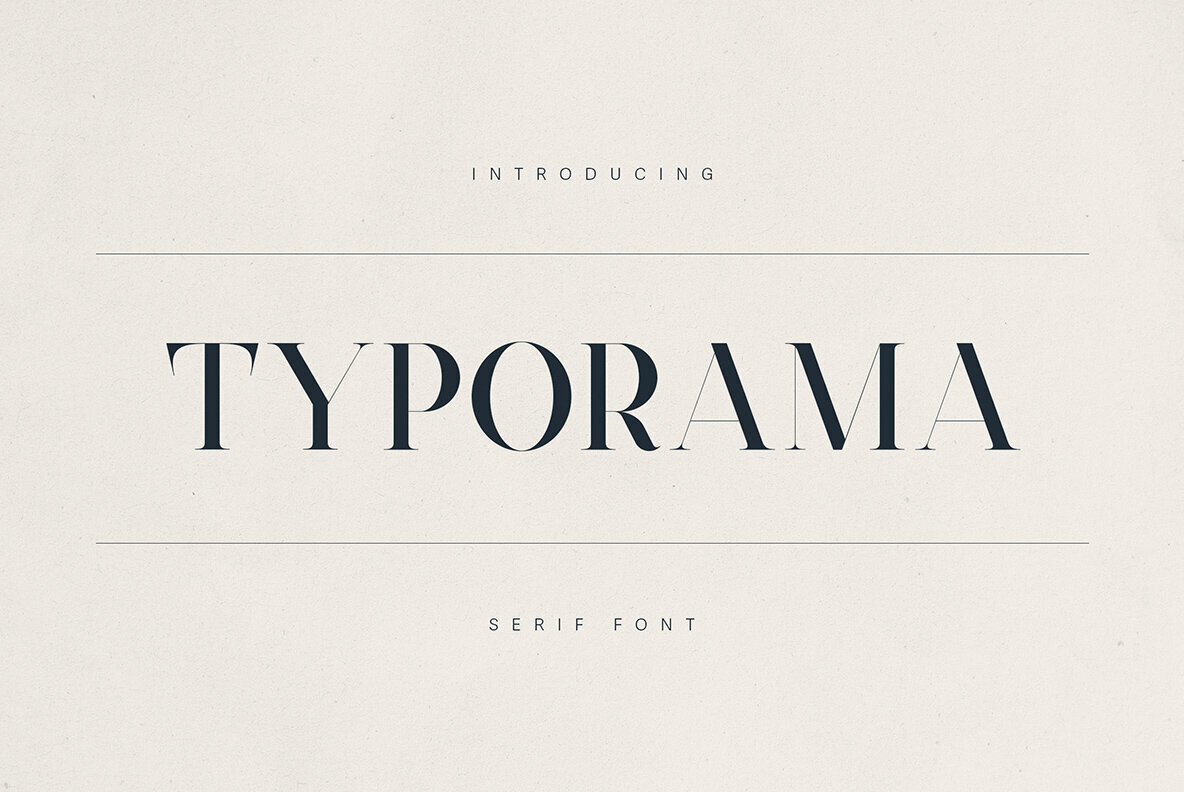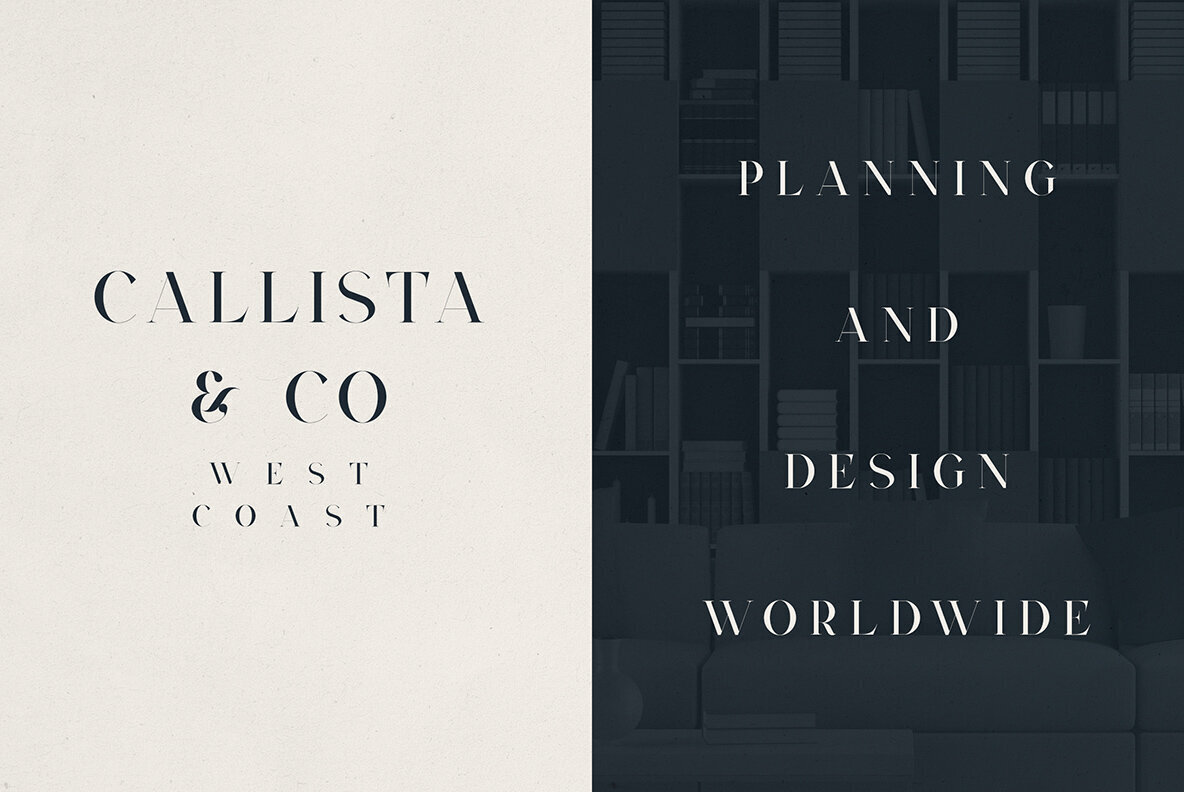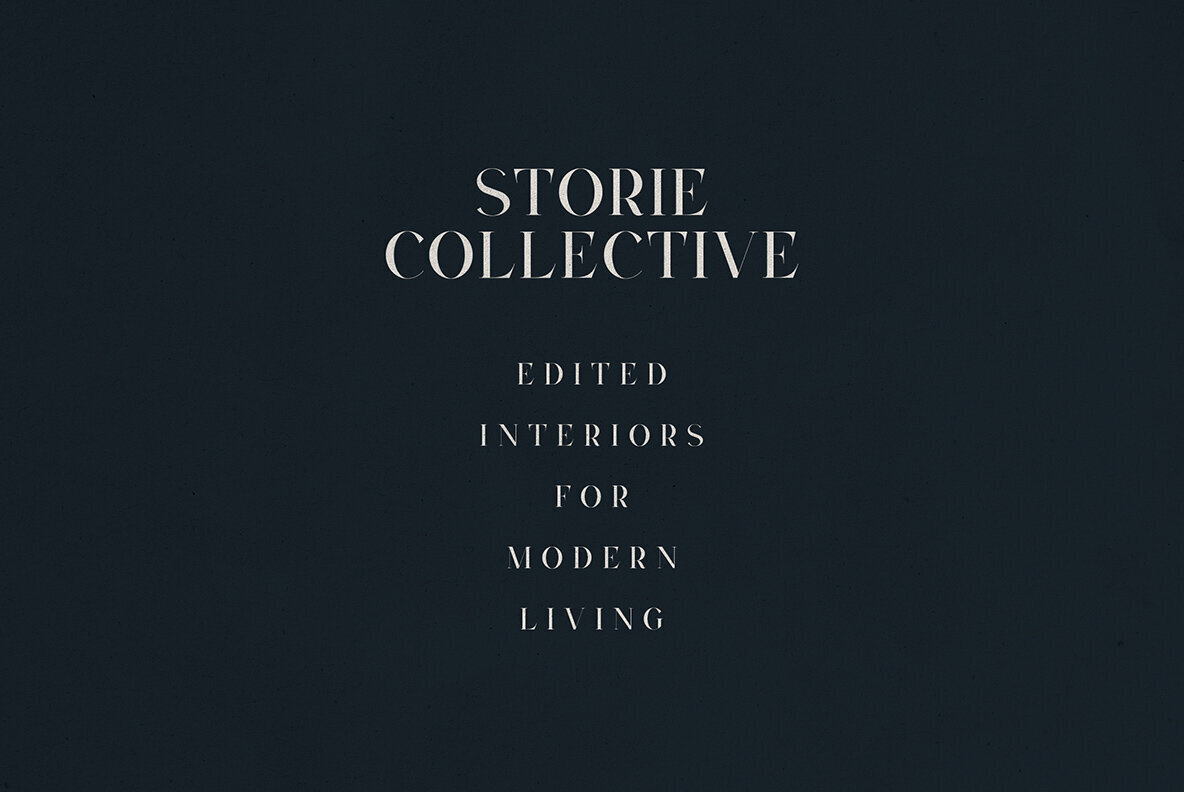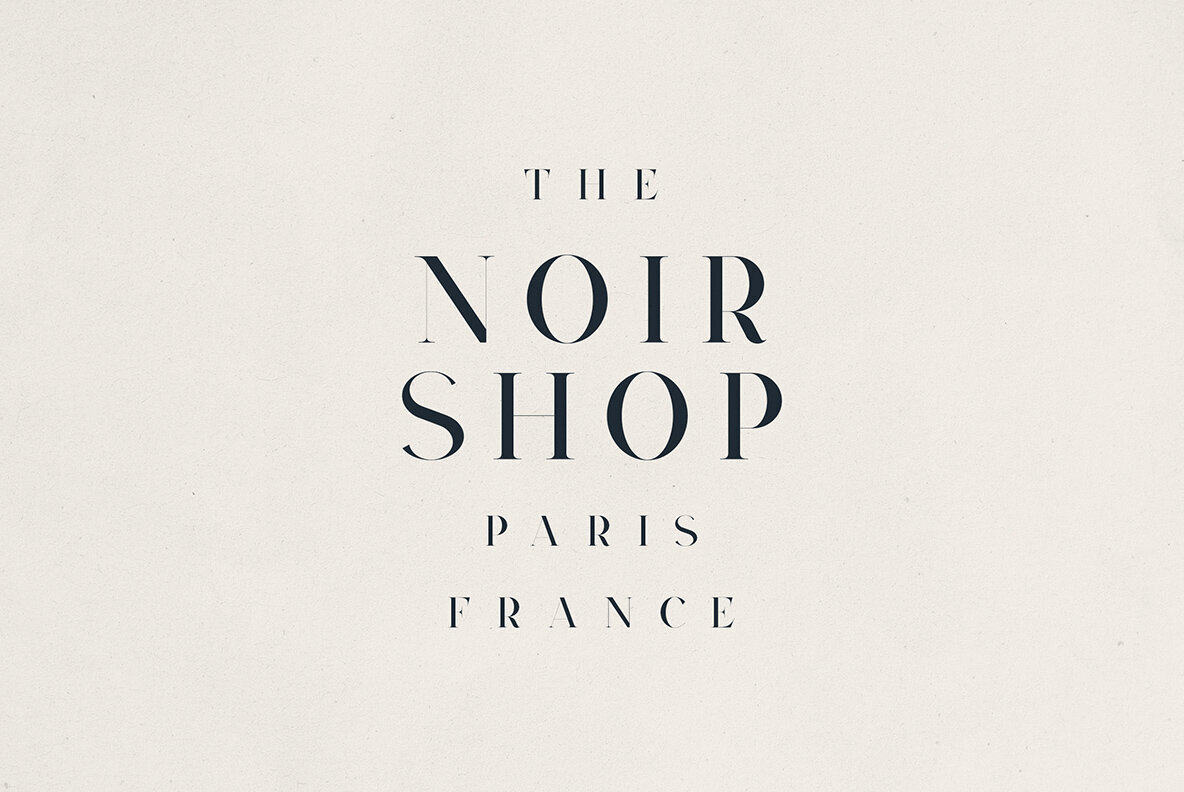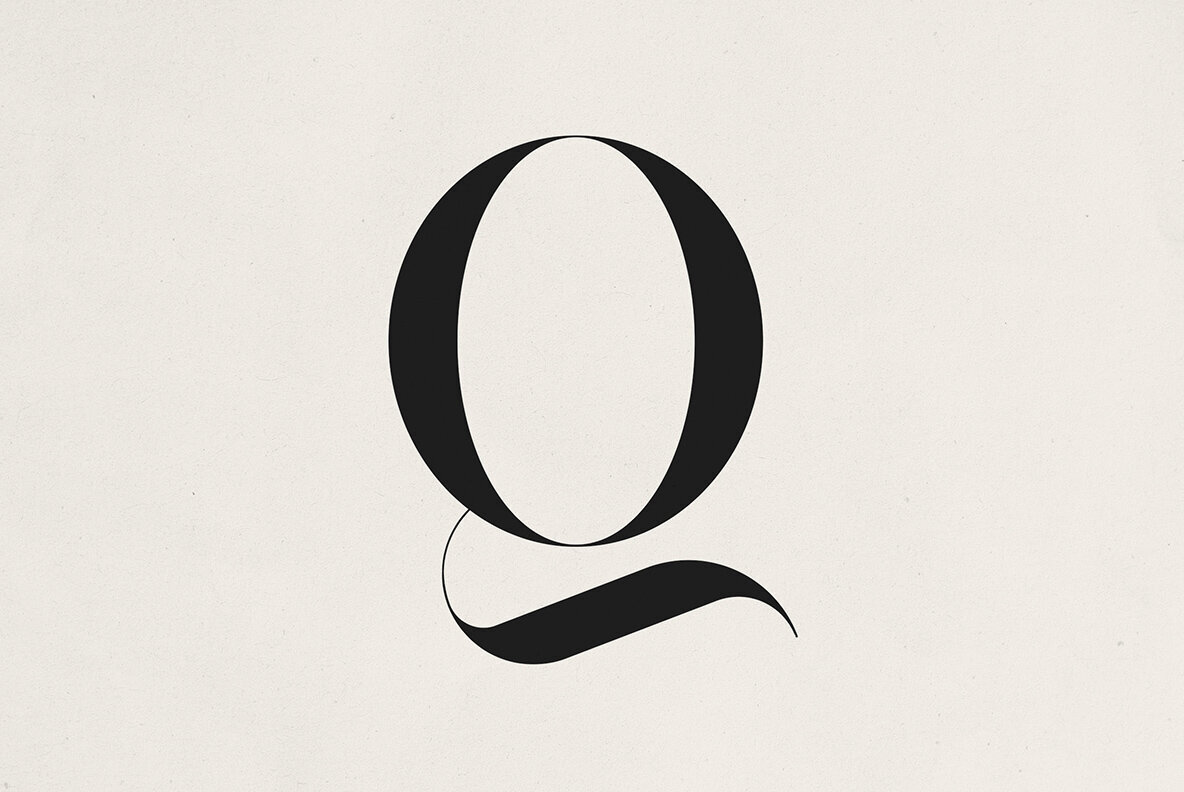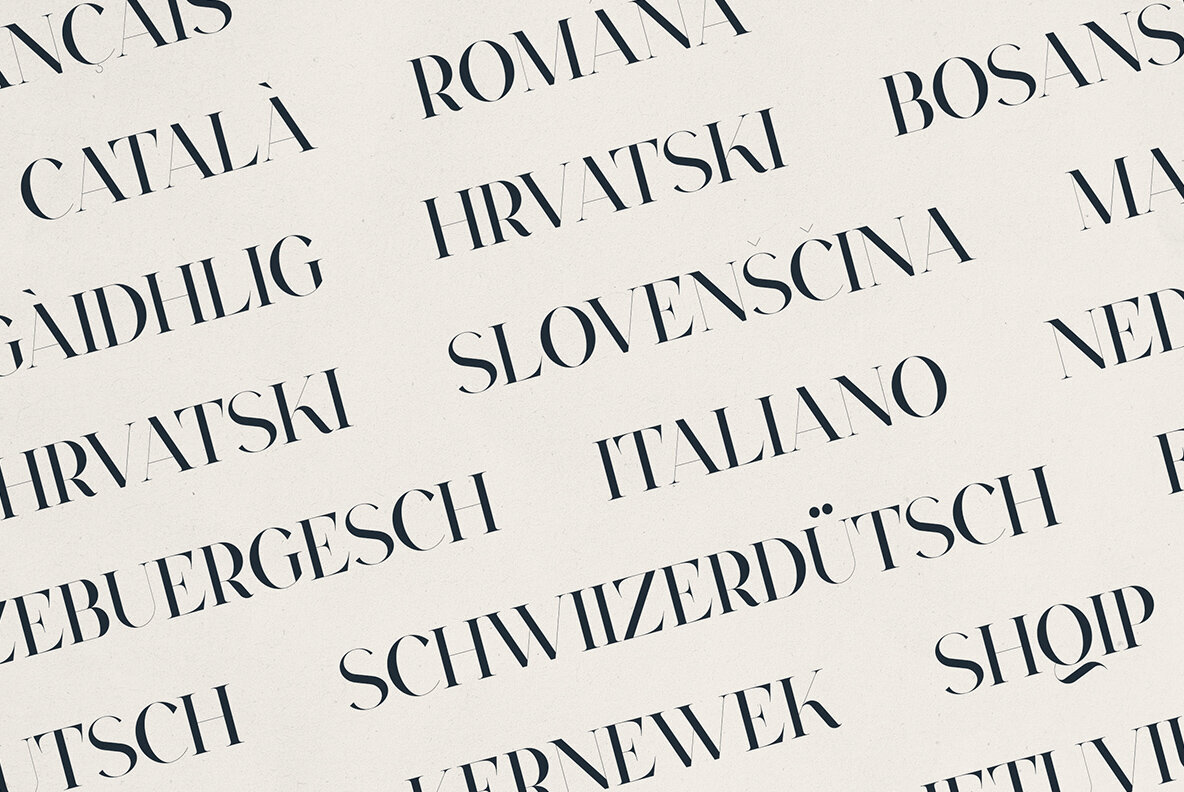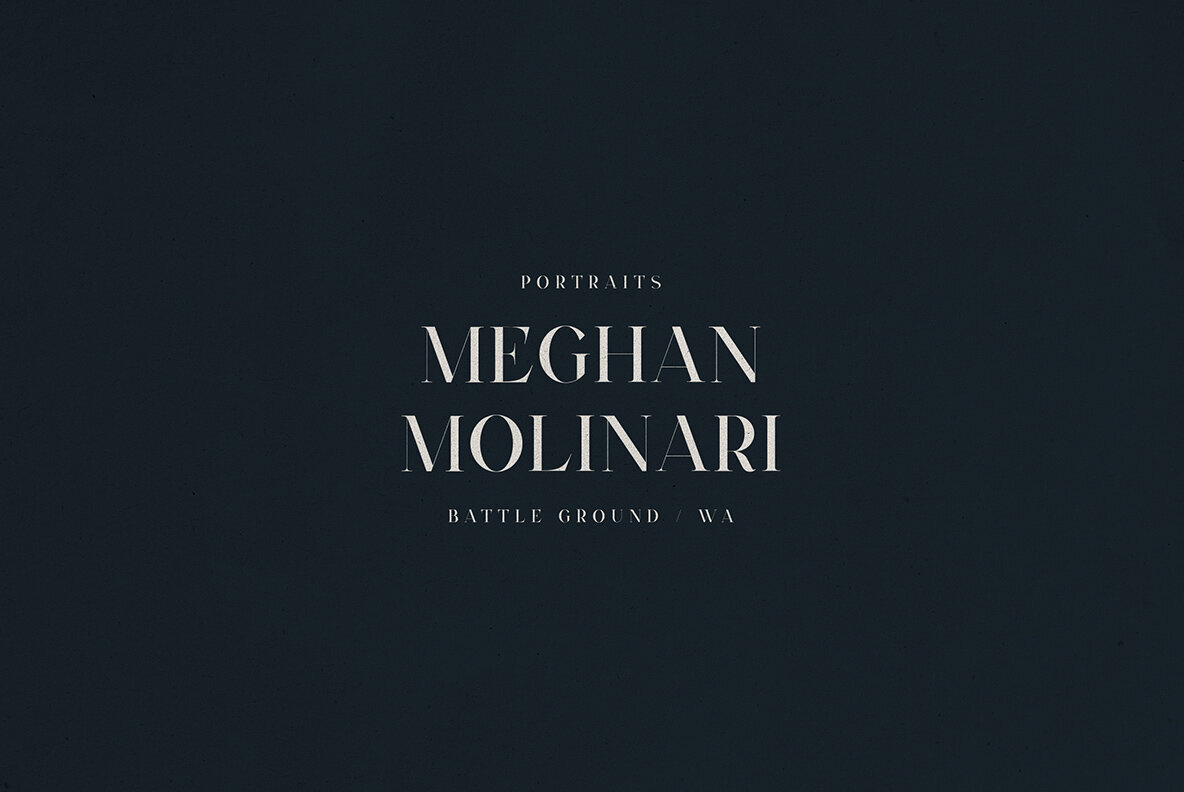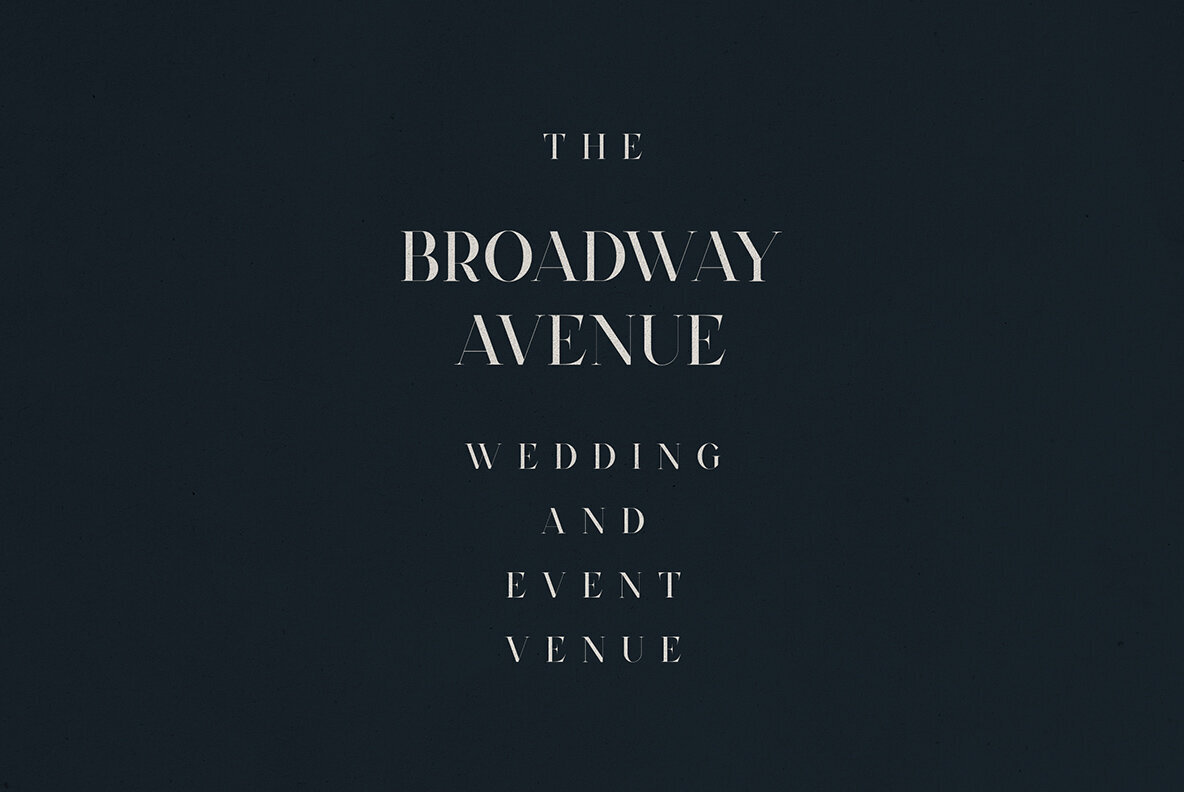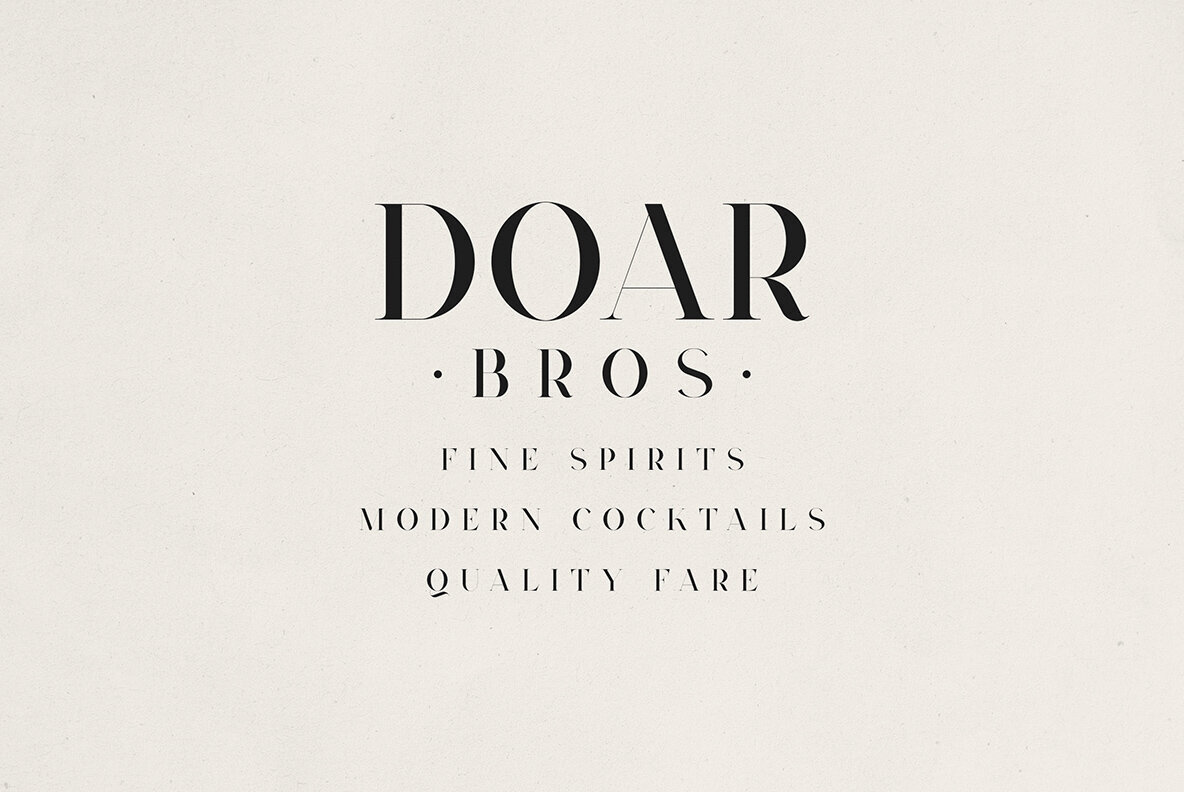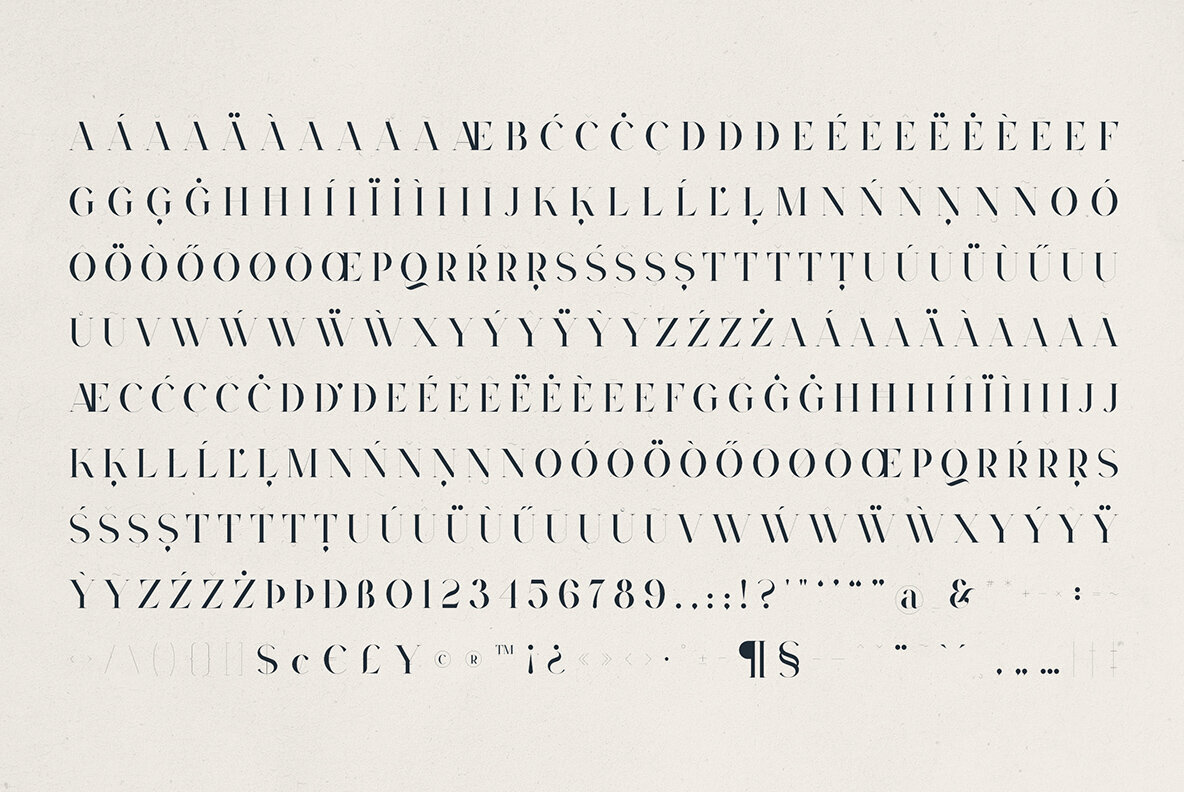
Typorama Font
Typorama Regular
Experience the refined elegance of Typorama, a sophisticated high-contrast serif font that exudes timeless luxury. With its sharp terminals and strikingly thin serifs, this font offers a modern yet classic feel perfect for projects ranging from brand identities to wedding stationery. Whether you're crafting designs for fashion brands, architecture studios, boutique hotels, or sleek magazines, Typorama captures attention with its poised clarity and sophistication.Typorama - Elegant Editorial Serif Font
Features and Ideal Applications